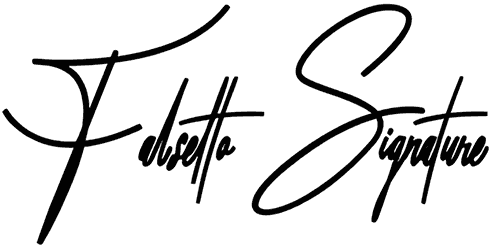
Falsetto Signature Font
Sophisticated, gorgeous, and fierce are the only true words we could find for describing a magical script font such as Falsetto Signature, which comes with a cursive flow that dances along the baseline.
This signature font can be perfectly fit for any kind of graphic content that requires a personalized touch, including posters, business cards, invitations, logos, and magazines. Aside from the lack of good readability and not supporting numbers, it can convey a sense of classic, dreaminess, or dynamism.